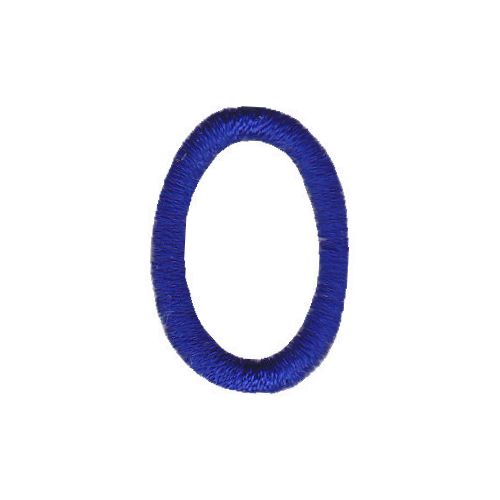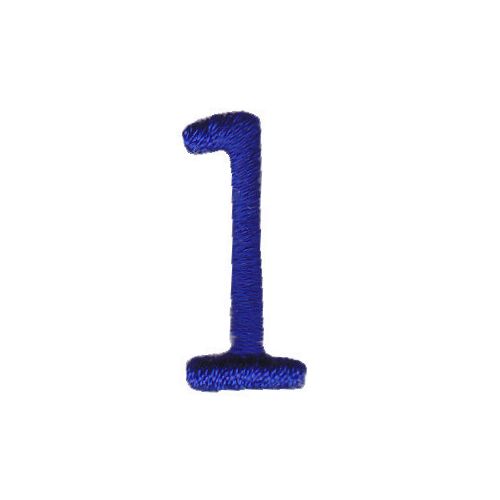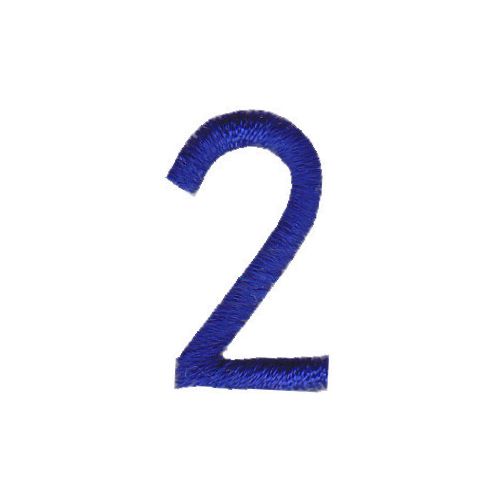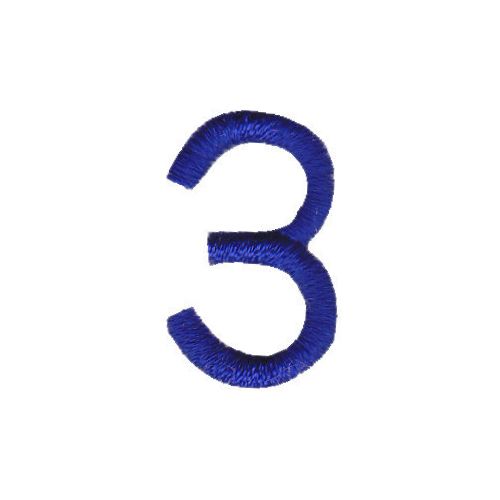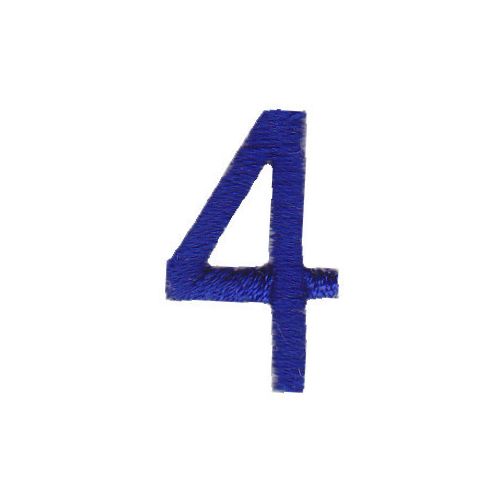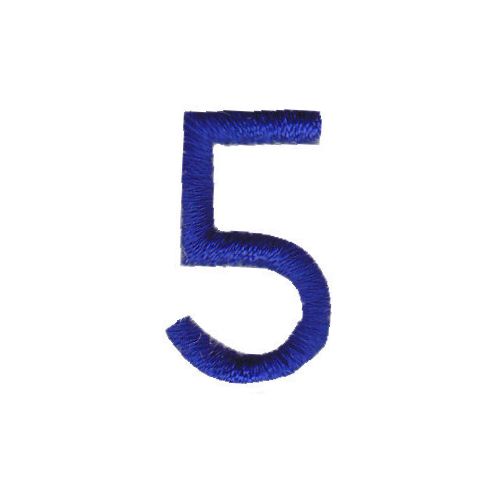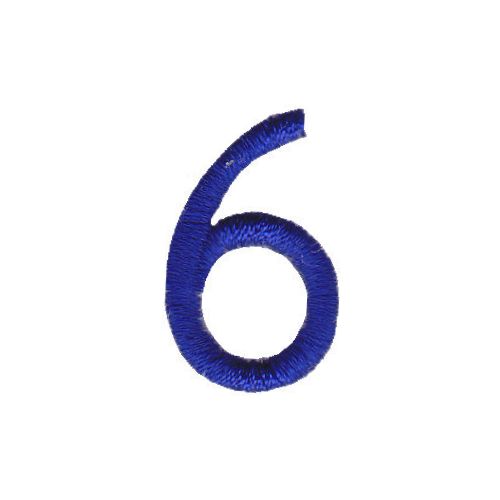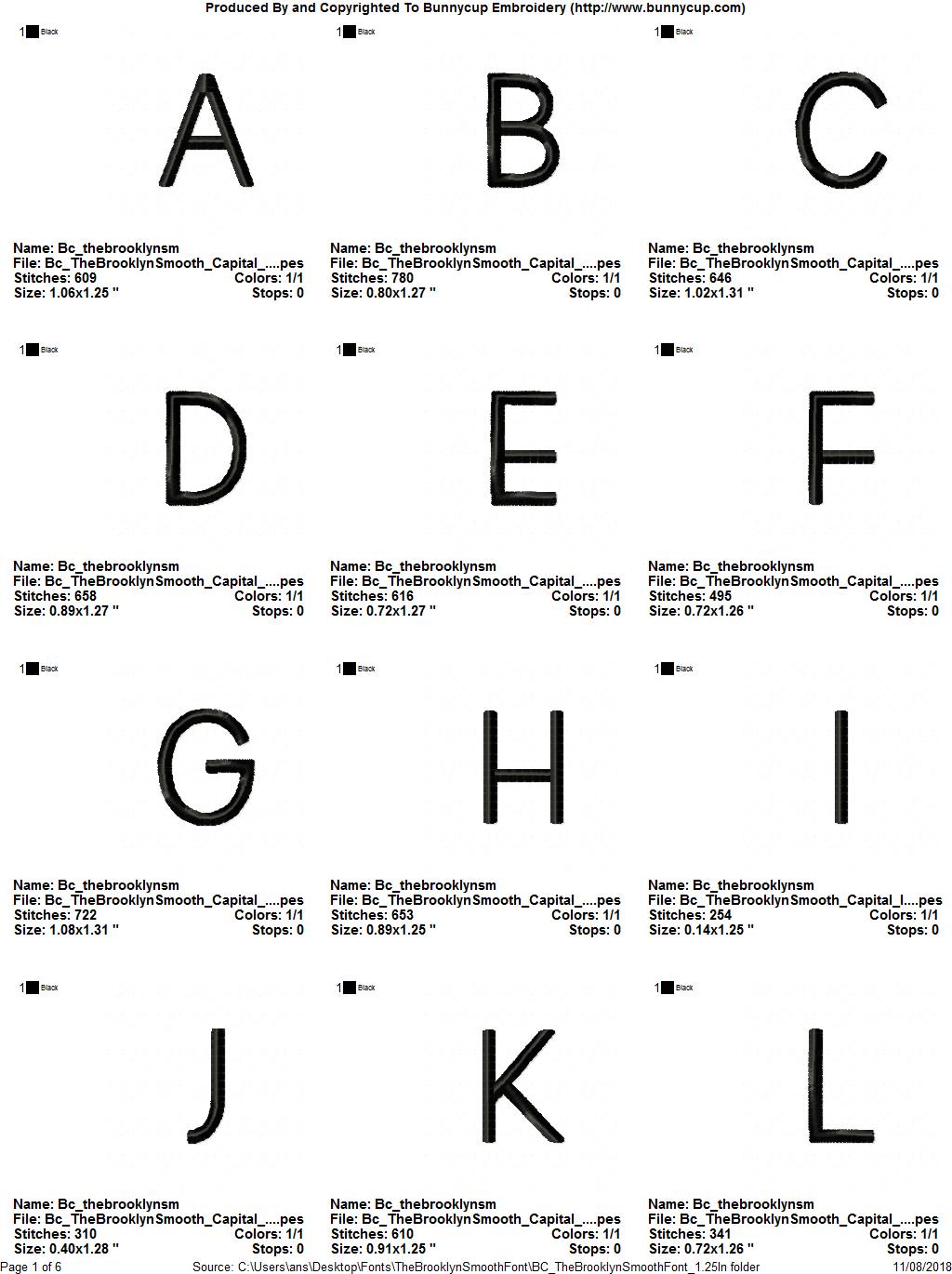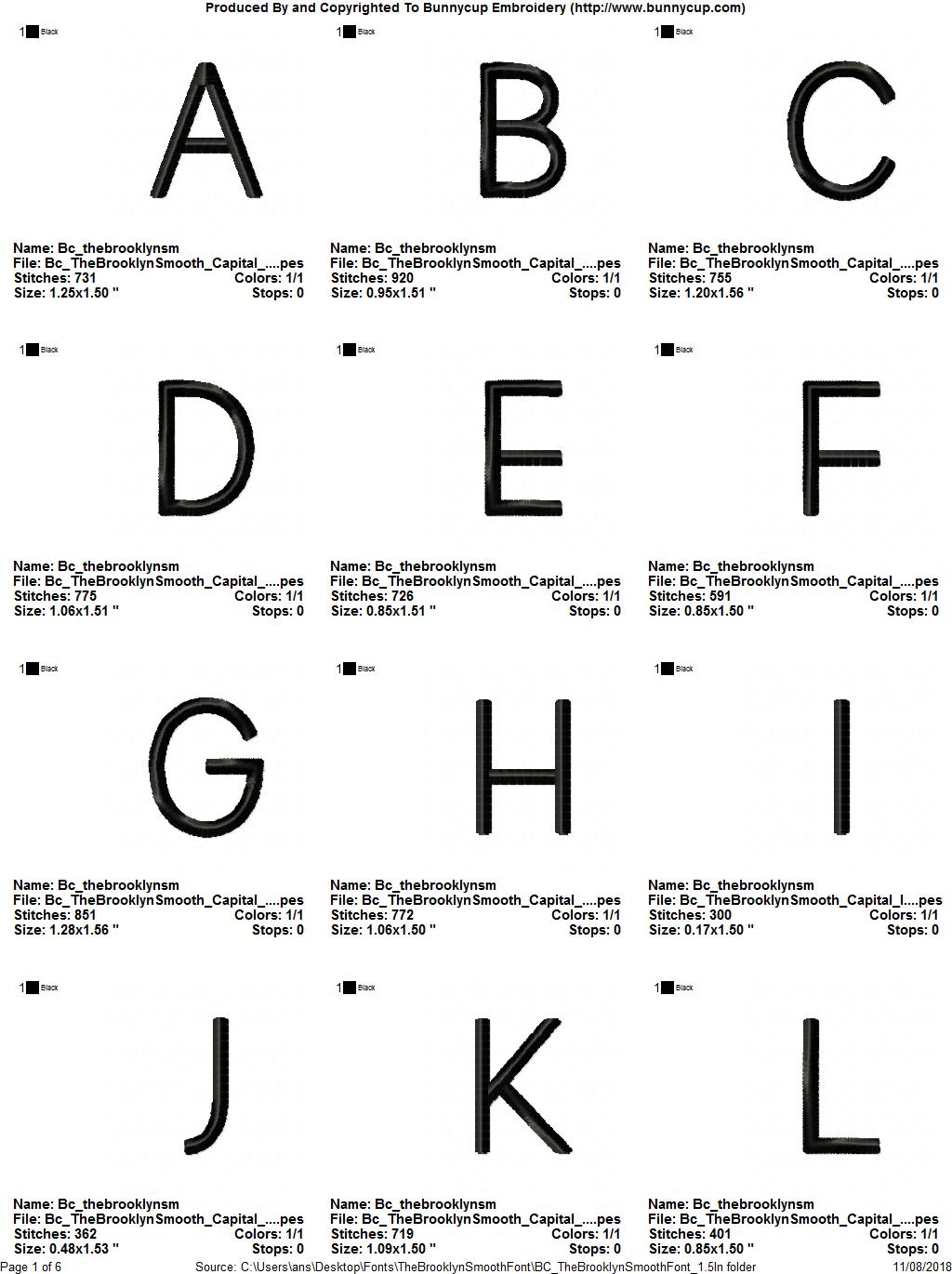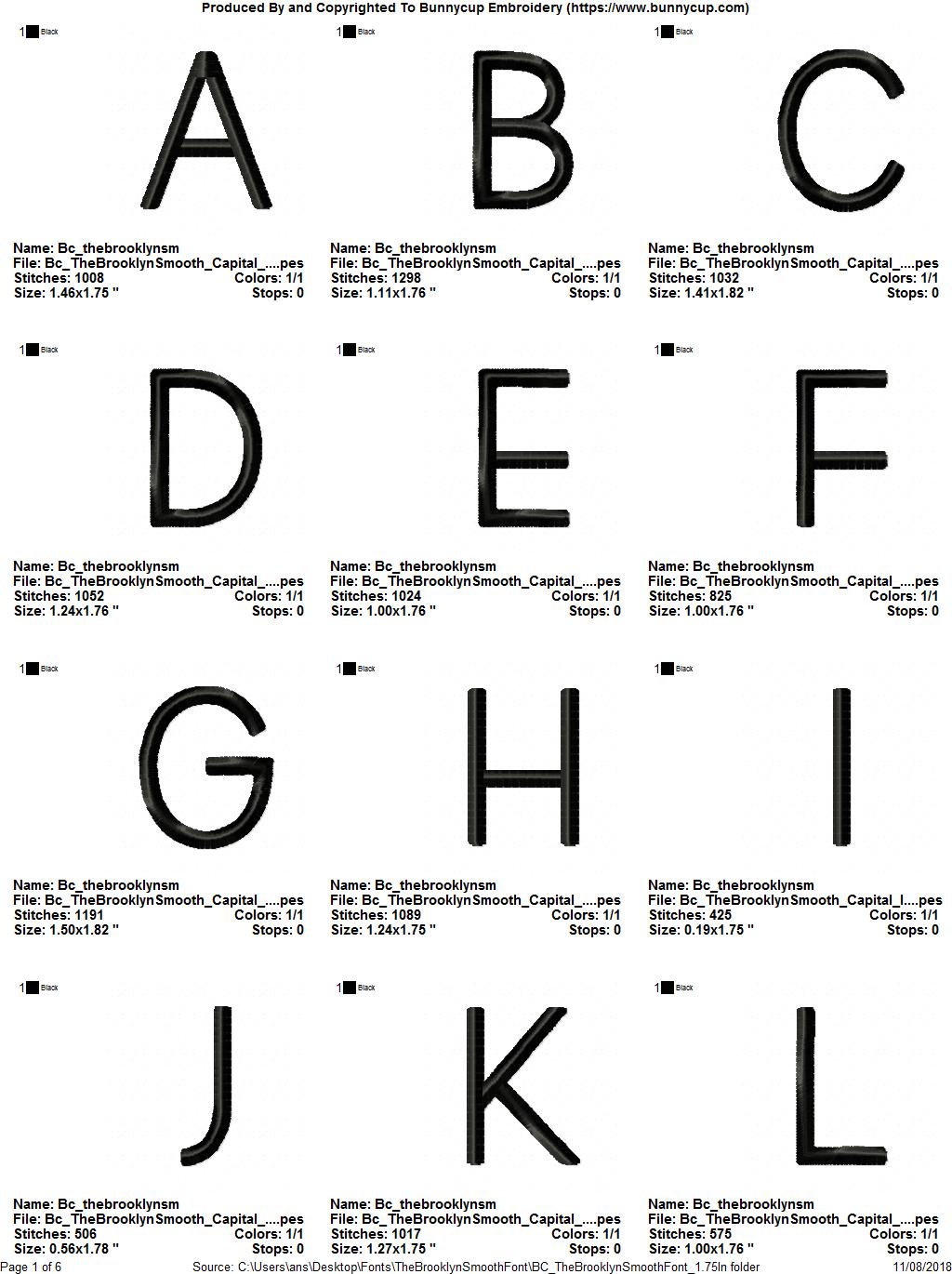
The Brooklyn Smooth Font
The Brooklyn Smooth Embroidery Font is a very neat, rounded font that comes in 5 great sizes - 1 Inch, 1.25 Inches, 1.5 Inches, 1.75 Inches and 2 Inches. The font includes Capitals, Lower Case and Numbers as displayed. BX files are also included for use with the Embrilliance software when purchasing the full alphabet set. Just choose your machine format, and the BX files will be included with your machine format files. See our full range of